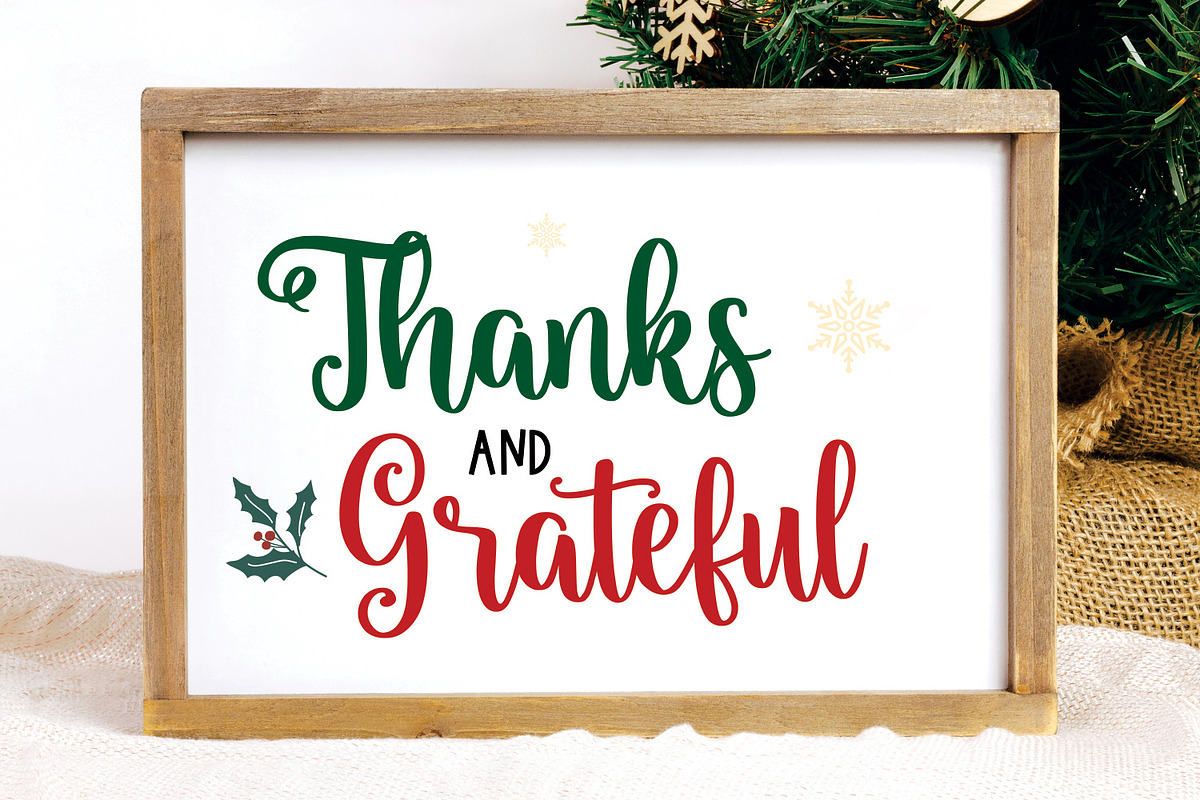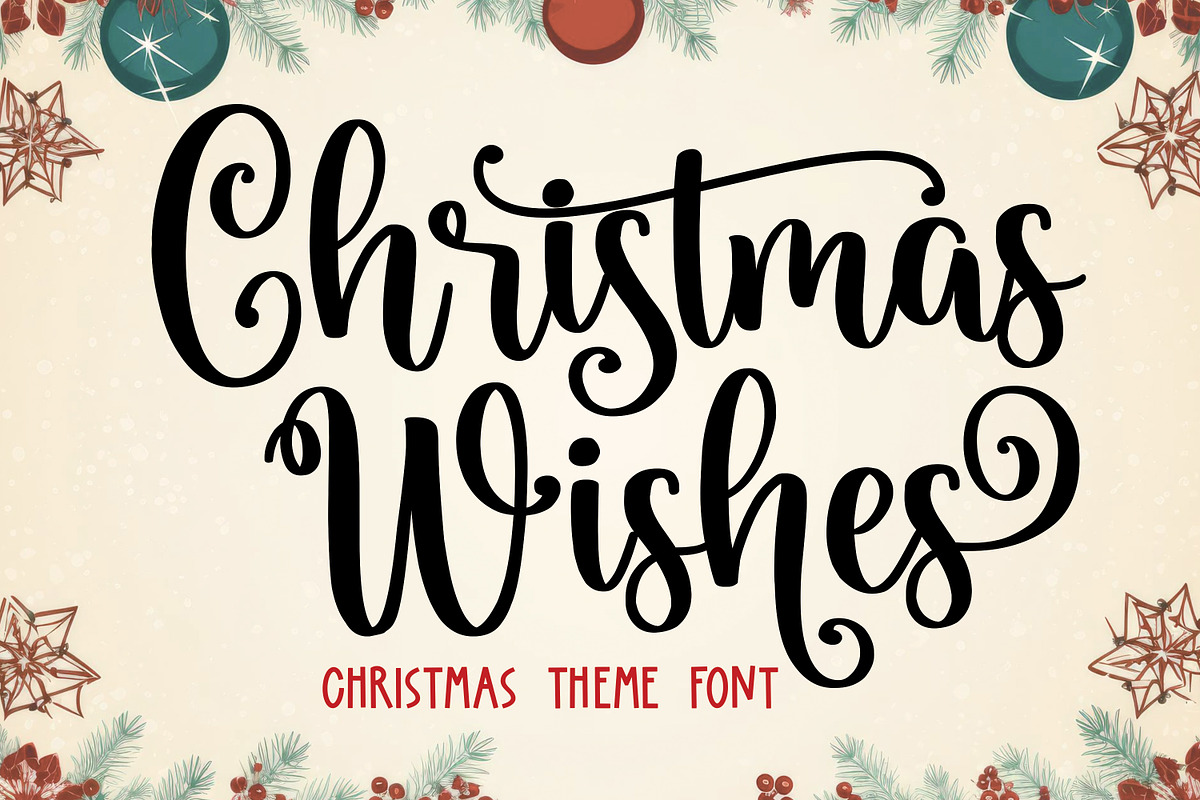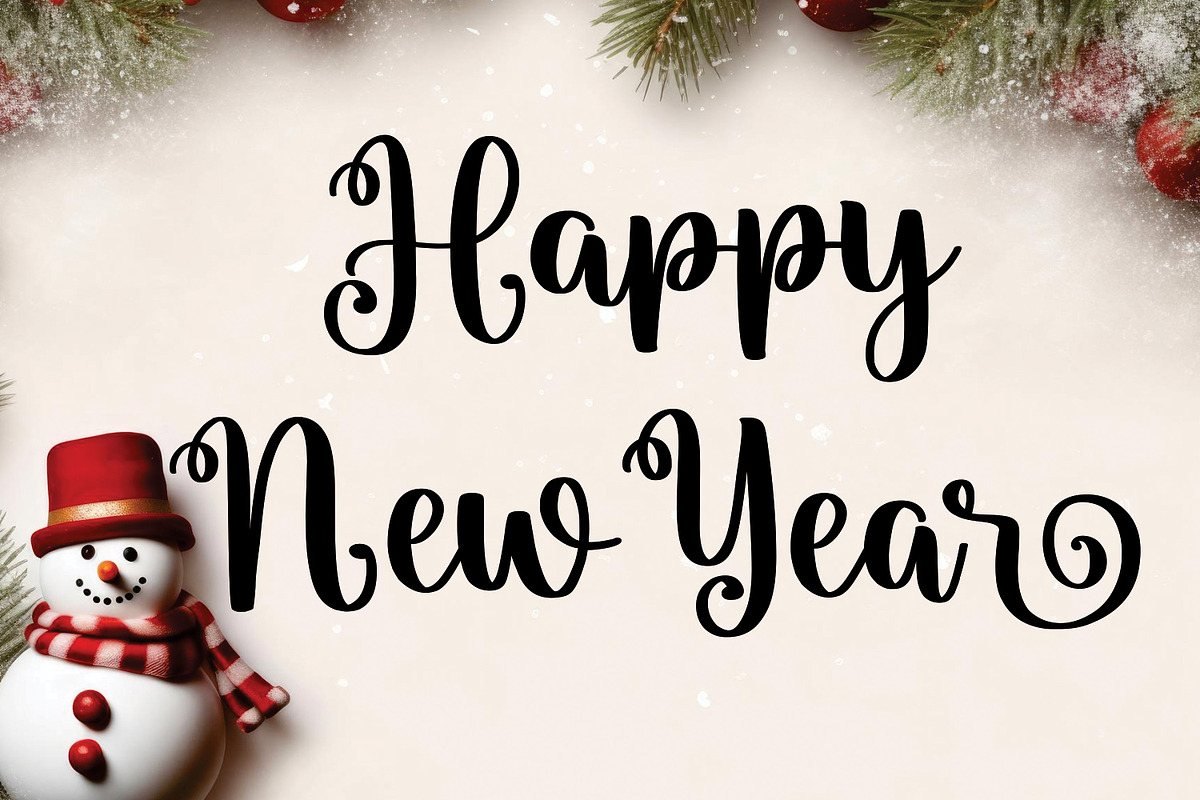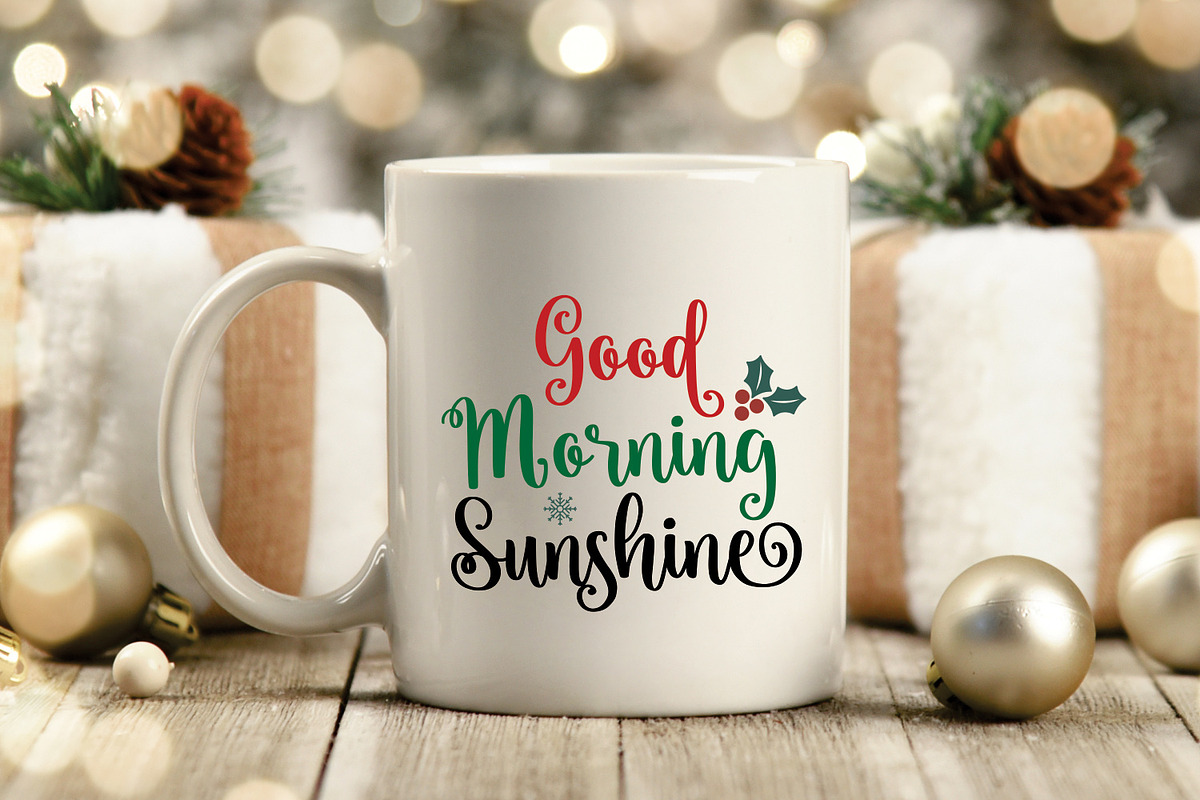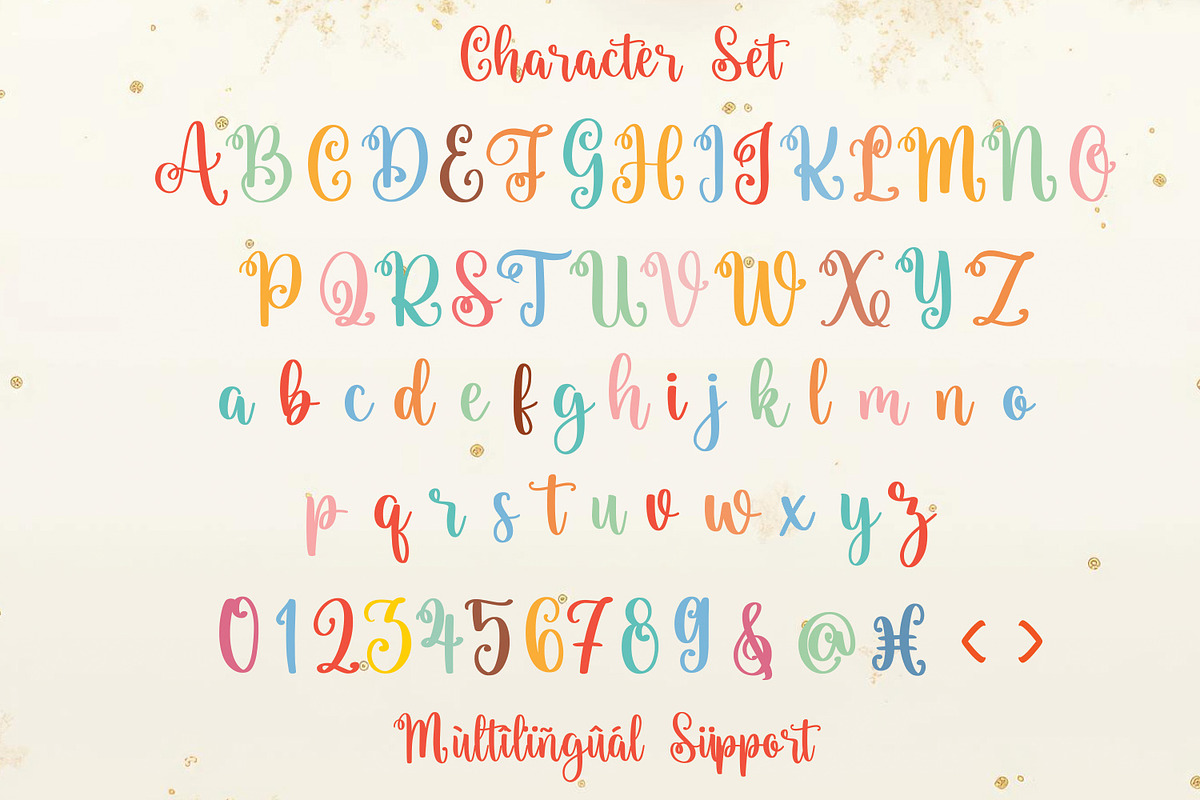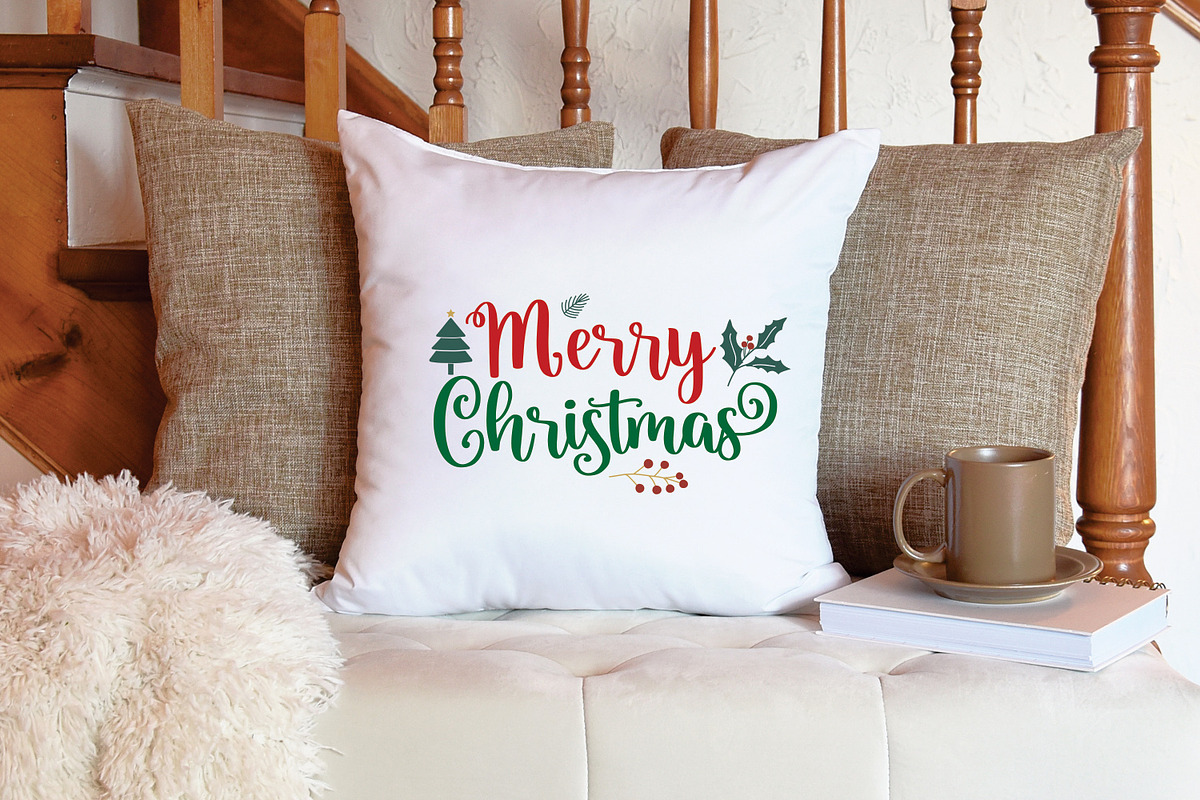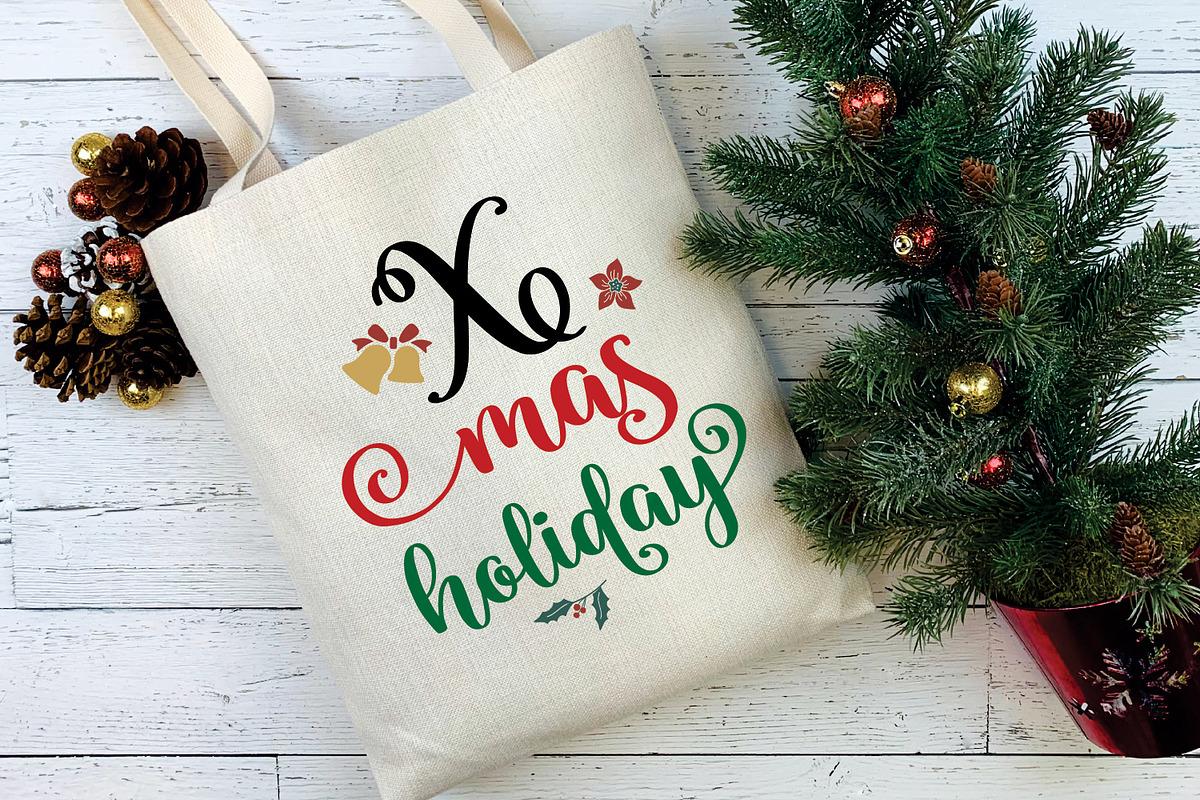
Christmas Wishes
Christmas Wishes Font – Your Perfect Handwritten Script for All Things Festive!
The "Christmas Wishes" Font is your ultimate companion for the holiday season, designed to infuse all your projects with the heartfelt spirit of Christmas. Whether you're crafting by hand, creating invitations, decorating for the holidays, designing brochures, and posters, or sending out warm and festive greetings, this font is the ideal choice to bring a touch of elegance and personal charm to your work.
This beautifully handwritten script font exudes warmth, sophistication, and a touch of nostalgia. Its graceful, flowing lines and carefully crafted characters give your creations a personal touch, as if each word was penned with love and care. The "Christmas Wishes" Font is not just a typeface; it's a tool to convey your sincere sentiments and spread the joy of the season.
With its versatility, "Christmas Wishes" is perfect for a wide range of applications. Crafters will find it a delightful choice for adding handcrafted charm to holiday projects. For invitations, it sets the tone for a festive and memorable event. When used in decorations, it adds an elegant and inviting atmosphere to your spaces. Brochures and posters featuring this font are instantly eye-catching and convey the warmth of the season. And when it comes to holiday cards and invitations, "Christmas Wishes" is your go-to font for making recipients feel special and cherished.
In summary, "Christmas Wishes" Font is more than just a typeface; it's a conduit for spreading joy, love, and warm wishes during the holiday season. Use it to make your Christmas crafts, invitations, decorations, brochures, posters, and cards truly memorable, ensuring that your festive messages are delivered with style and grace.